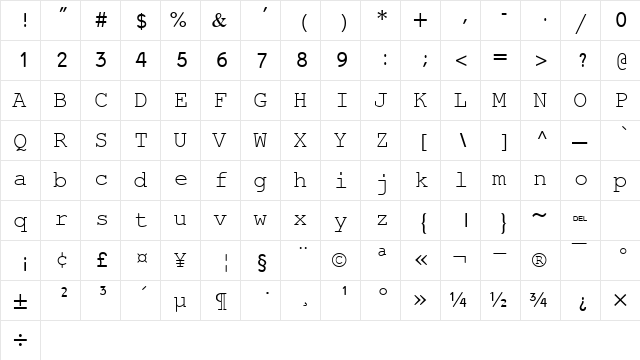
Fixed Miriam Transparent Regular
Design Context for Fixed Miriam Transparent Typeface
Fixed Miriam Transparent takes a measured approach to typography — its balanced proportions and neutral character make it a reliable workhorse for both digital and print work.